The 1970s brought about new extravagant and bold graphic design choices. The cultural trends and movements of the time greatly influenced design. It was a time when typefaces and colors became loud, bold, and funky. Combinations of monochrome and bright colors were seen, and rounded, hand-drawn-looking fonts were at the forefront of design. This retro 70’s look is having a resurgence, and you can easily create and customize the look for your own design purposes.
Today, we will look at the 70’s-inspired Quote Aesthetic for social media pack below to show you how to create your own designs using these pre-made templates. This pack comes with template sizes for Instagram posts and stories. However, you can also use the Instagram post size for Pinterest or beautiful blog imagery.
Design it Yourself
The beautiful thing about these quote templates is that they are as customizable as you want them to be. You can leave them as is, you can simply change the wording, or you can use your own brand fonts and colors to change them completely.
How to Make Your Brand Fit a 70’s Aesthetic
To make your brand fit a 70’s feel, you must first keep in mind key graphic design elements from the ’70s. In order to create a 70’s look and feel, your design must include three key elements:
1. 70’s style fonts
2. Surprising color combinations
3. Gradients and grain
1. Font Selection
Let’s look at the first key element: font selection. This pre-made social media pack uses free fonts that already create that 70’s feel for you (just make sure to download the fonts before you open the files and you are all set). However, if you want to use your own font selection that better suits your brand, you have a few options to keep that 70’s feel. You can use a bold/heavyweight of your font, you can create an outline around your font, or you can search 70’s fonts and find one that fits well with your brand. Thick, bold, curvy, hand-drawn, or bubble-looking fonts are all elements that will give your design a 70’s style. I will show you can easily customize the font to make the pre-made template design fit your branding.
Instructions:
Choose an image to edit from the pack to help you design your own 70’s look. I will be editing image 25 to demonstrate. Below is the original quote template.
ORIGINAL
To edit the text, just click on the text layers and type.
DESIGN IT YOURSELF
I changed the font from “Coconat” to a more common brand font, “Futura Book.” I chose to make the font bold for the main font and medium for the smaller text.
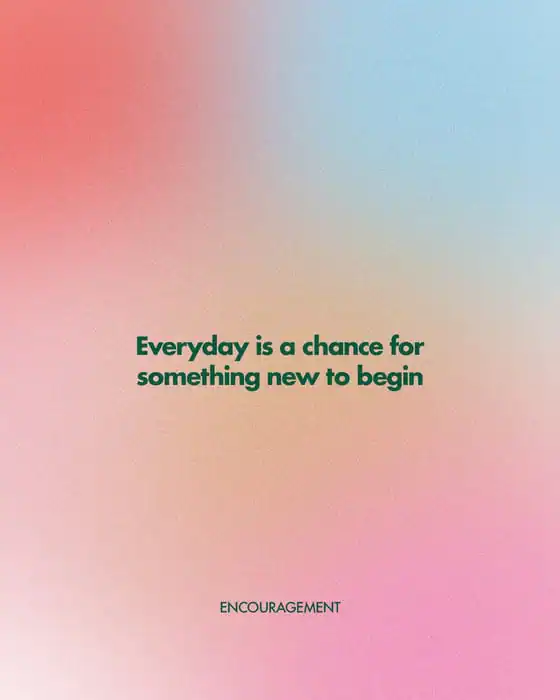
2. Color Combinations
Let’s look at the second key element: surprising color combinations. These 70’s quote templates offer a variety of 70’s color combinations. However, you can easily customize the colors to match your own brand colors. The 70’s used exciting and unique color combinations such as bold and bright colors mixed with monochrome or muted color tones. You can easily customize template colors to be more suitable for your brand. For example, if you normally use neutral colors only, try throwing in a pop of color.
Instructions: Choose an image to edit from the pack to help you design your own 70’s look. I will be editing image 06 to demonstrate. Below is the original quote template.
ORIGINAL
To edit the background color, double click on the background layer (highlighted in green) and pick the new color you want. Editing the text in this file is slightly different because it is a smart object. Just double click on the textual smart object layer to edit (highlighted in yellow). The smart object will open up a new tab allowing you to customize the font.
DESIGN IT YOURSELF
I simply added different words and changed the colors to create a new look. I chose a muted background color with a bold pop of blue.
3. Gradients and Grains
Lastly, let’s look at the last key element: gradients and grain. Gradients and grain are the simplest and quickest way to help your design have a more 70’s feel to it. There are several gradients and grains already created in the 70’s quote pack that you could easily drag and drop from one template onto another. However, you could also always purchase more gradient and grain options on Creative Market or even create your own.
Instructions: Choose an image to edit from the pack to help you design your own 70’s look. I will be editing image 16 to demonstrate. Below is the original quote template.
ORIGINAL
Option One: To add a gradient to this template, I will copy the gradient from image 10 and paste it above the background in image 16.
DESIGN IT YOURSELF